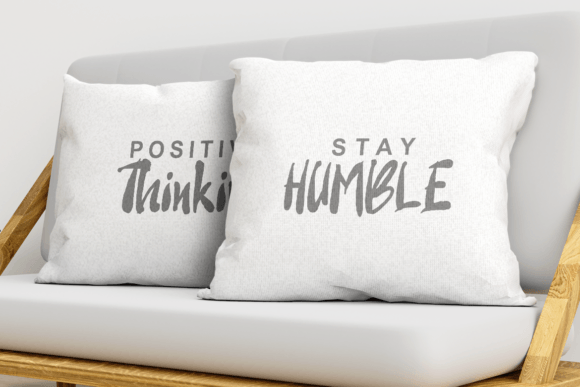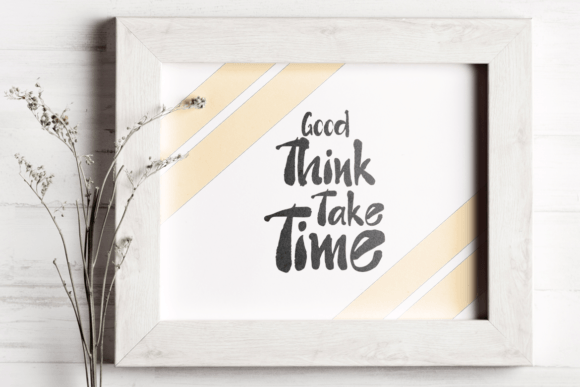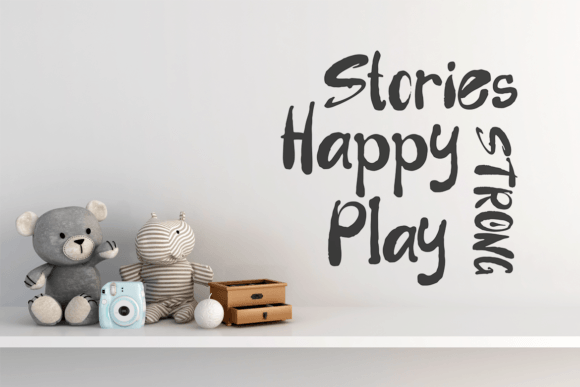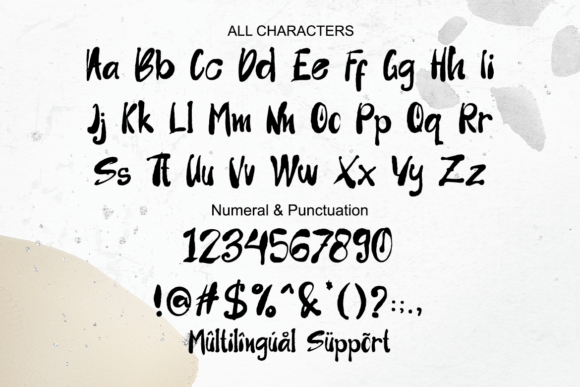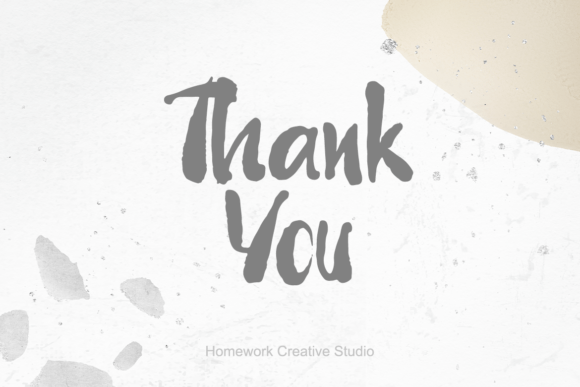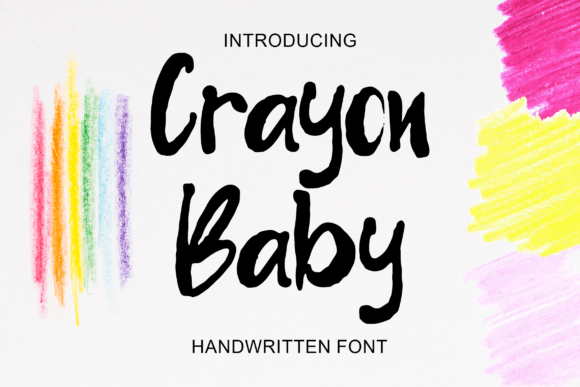
Crayon Baby Font: The Ultimate Choice for Designers and Crafters
Are you tired of using the same old fonts for your designs and crafts? Look no further! Crayon Baby Font is here to add a touch of fun and cuteness to your projects. This handwritten font with a natural feel is perfect for a variety of applications, from crafts and digital design to presentations and greeting cards.
What is Crayon Baby Font?
Crayon Baby Font is a unique and charming font that is sure to capture the hearts of designers and crafters alike. Its natural, handwritten feel makes it perfect for creating projects that require a personal touch. The font is reminiscent of child’s crayon drawings, which adds a playful and whimsical feel to any design.
Features of Crayon Baby Font
• Handwritten feel: Crayon Baby Font has a natural, handwritten feel that makes it perfect for creating personal and unique designs.
• Fun and cute: The font’s playful and whimsical feel makes it ideal for projects that require a touch of fun and personality.
• Versatile: Crayon Baby Font can be used for a variety of applications, including crafts, digital design, presentations, and greeting cards.
• Easy to read: Despite its playful feel, Crayon Baby Font is easy to read, making it perfect for designs that require a clear and concise message.
Uses of Crayon Baby Font
Crayon Baby Font is a versatile font that can be used for a wide range of projects. Here are some ideas to get you started:
• Crafts: Use Crayon Baby Font to add a personal touch to your craft projects, such as scrapbooking, card making, and DIY gifts.
• Digital design: Crayon Baby Font is perfect for digital designers who want to add a touch of personality to their designs, such as social media graphics, blog posts, and email newsletters.
• Presentations: Use Crayon Baby Font to add a playful and engaging touch to your presentations, making them more memorable and fun to watch.
• Greeting cards: Crayon Baby Font is perfect for creating personalized greeting cards for special occasions, such as birthdays, holidays, and weddings.
Why Choose Crayon Baby Font?
With so many fonts available, why choose Crayon Baby Font? Here are just a few reasons:
• Unique and distinctive: Crayon Baby Font is a one-of-a-kind font that will set your designs apart from the rest.
• High-quality: Crayon Baby Font is a high-quality font that is designed to produce clear and crisp results, even at small sizes.
Crayon Baby Font is a fun and cute handwritten font with a natural feel that is perfect for designers and crafters. Its versatility, ease of use, and unique feel make it an excellent choice for a wide range of projects. Whether you’re creating crafts, digital designs, presentations, or greeting cards, Crayon Baby Font has the potential to become your favorite go-to font. So why not give it a try and see the difference it can make in your designs?
Get Creative with Crayon Baby Font!
Ready to get creative with Crayon Baby Font? Here are some tips to help you get started:
• Experiment with different colors: Crayon Baby Font looks great in a variety of colors, so don’t be afraid to experiment and find the perfect hue for your design.
• Mix and match with other fonts: Crayon Baby Font pairs well with other fonts, so try mixing and matching it with different fonts to create a unique look.
• Use it for titles and headings: Crayon Baby Font is perfect for titles and headings, so use it to add a touch of personality to your designs.